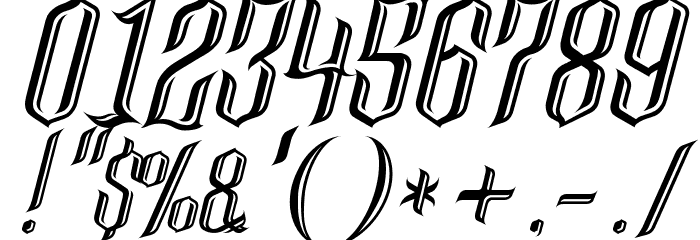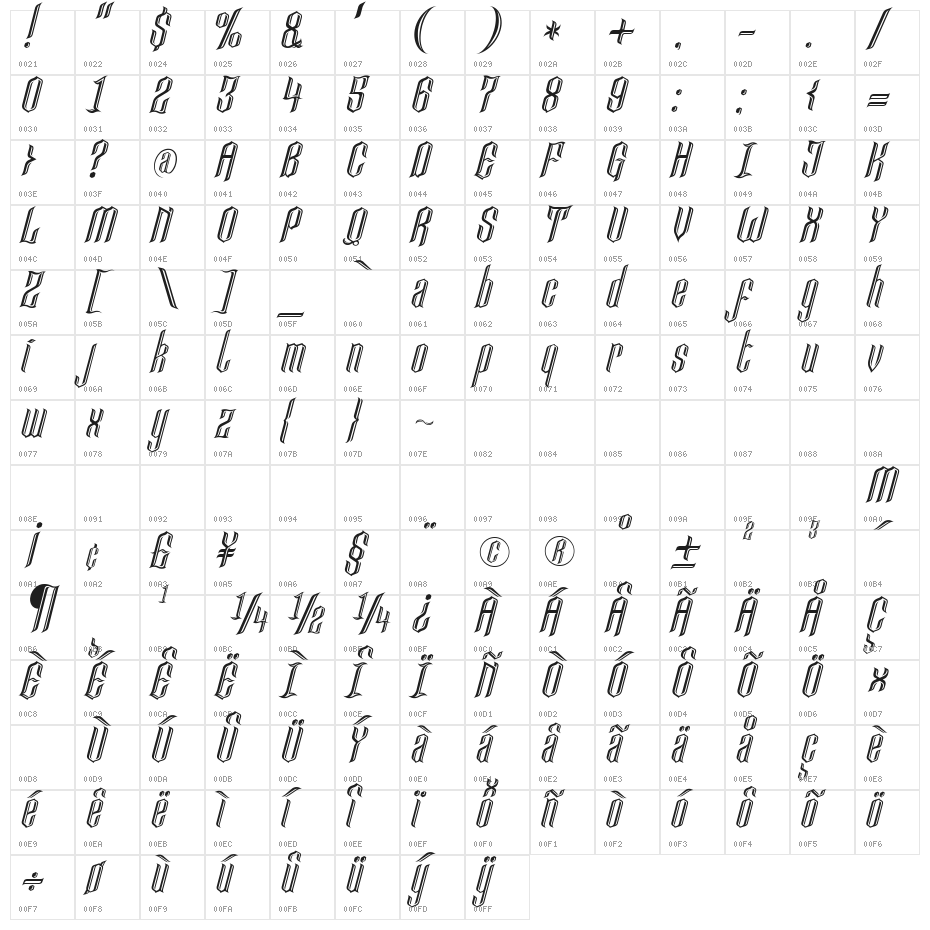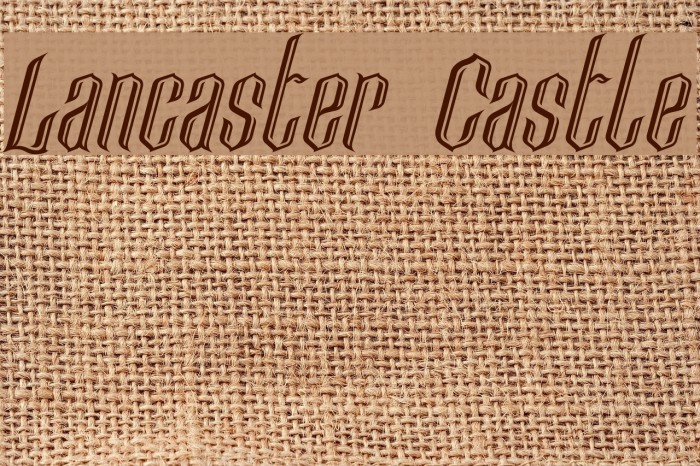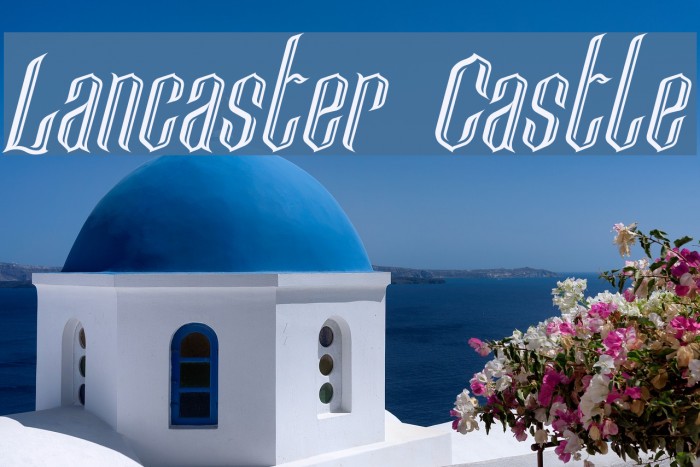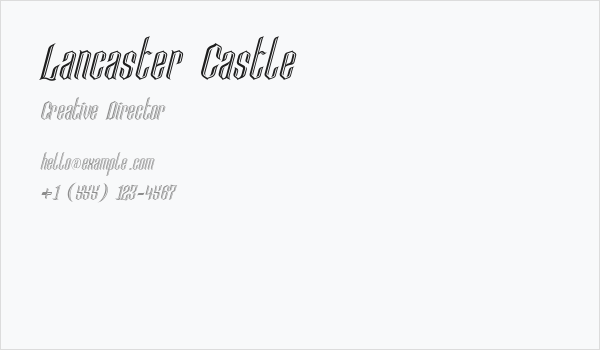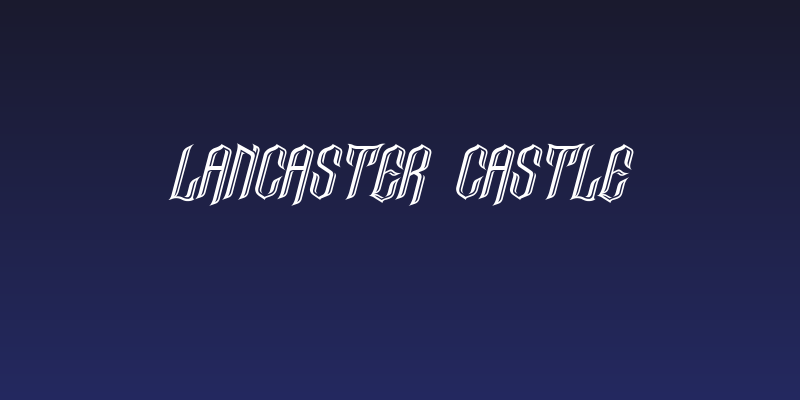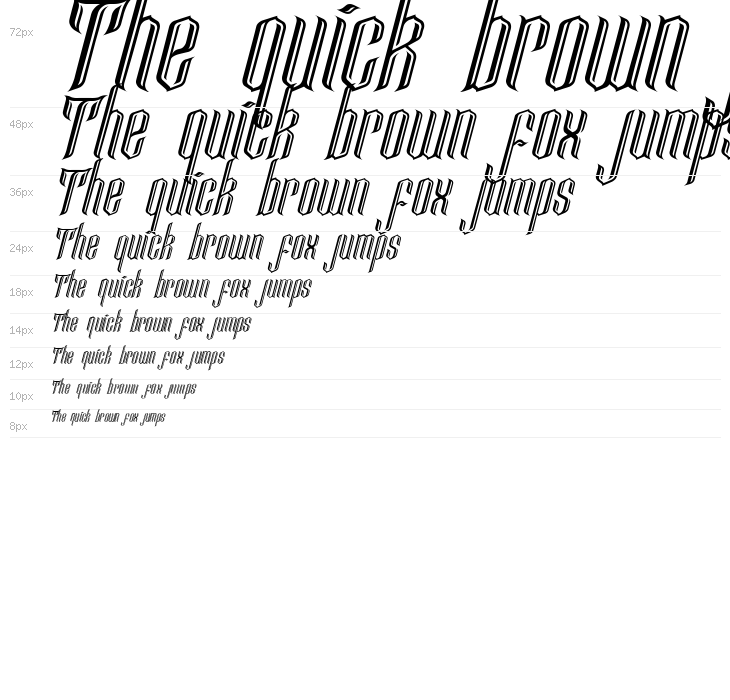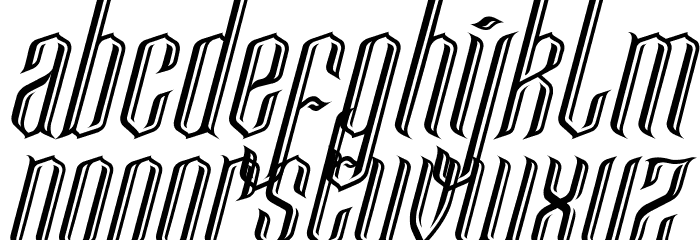
Lancaster Castle Font
Lancaster Castle Description
This font features a bold and dynamic design with a strong emphasis on angular lines and sharp edges, reminiscent of Gothic and Blackletter styles. The characters are elongated and slightly condensed, giving them a sleek and modern appearance while maintaining a classic and historical feel. The strokes are thick with high contrast, creating a dramatic and eye-catching effect. The uppercase and lowercase letters maintain a consistent style, with unique flourishes that add to the font's decorative nature. The numerals and special characters are designed to match the overall aesthetic, ensuring a cohesive look across all text elements.